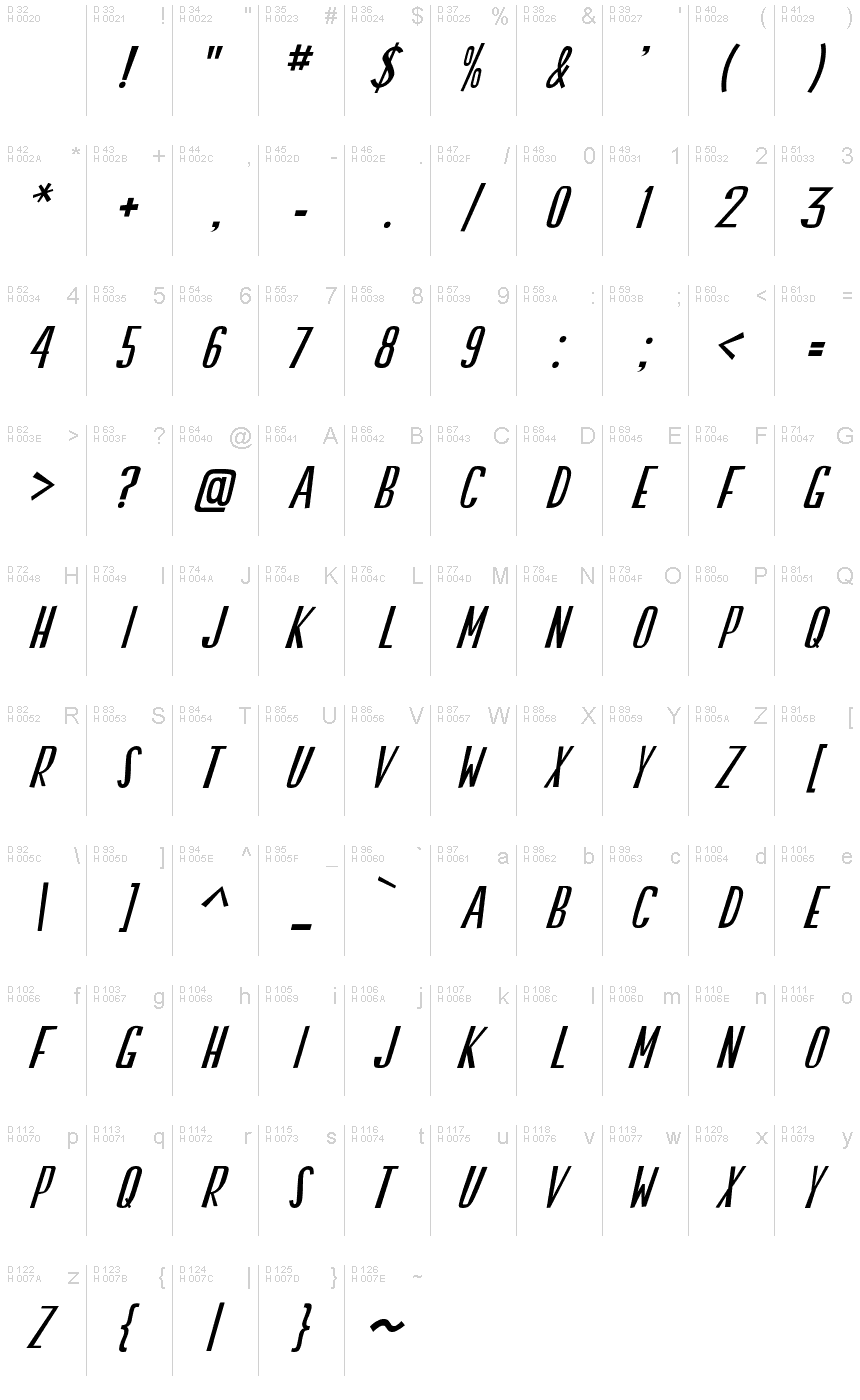
Swallow Falls Italic
Swallow Falls Italic is a free retro comic display font with towering, sharply slanted letters and a lean, poster-like silhouette. Its narrow forms shift between broad strokes and hairline cuts, with pointed joins and brisk diagonals that make the lettering look fast and slightly unruly.
It can turn a title into artwork, especially for racing posters, pulp comic covers, or music merchandise. The angle and compressed proportions also suit arcade graphics and event branding, where the type can read like a hand-painted sign rather than neutral text.
Some characters were redrawn, and spacing was adjusted.